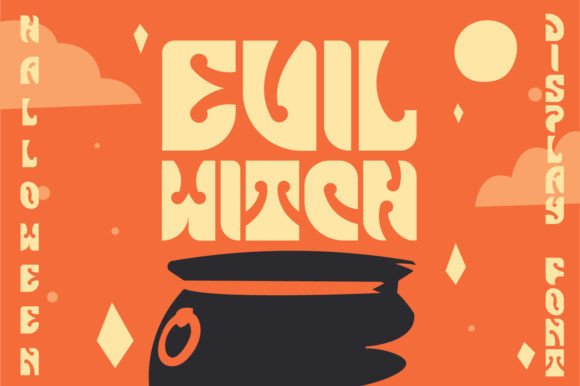
Dare to be different and let your creativity run wild with Evil Witch - a font that captures the essence of Halloween like no other. Its retro cartoonish style is a blast from the past, ready to breathe life into your haunting designs. From eerie Halloween cards that send shivers down spines to delightfully wicked party flyers, Evil Witch is your go-to font for all things spooky.
Picture this: A Halloween poster that transports you back to classic cartoon chills, its letters dripping with mischief and dark enchantment. Or, envision invitations that cast a spell on recipients, inviting them to a night of thrills and ghostly fun. The possibilities are endless, and the power lies in your hands.
With Evil Witch, you'll have a font that's perfect for labels that warn of haunted houses or potions that promise magical transformations. It's the ideal choice for decorations that add an extra layer of spooktacular ambiance to your Halloween setup, creating an unforgettable atmosphere that will leave your guests spellbound.
But Evil Witch isn't just limited to Halloween. Its versatility extends to any project craving a touch of quirky charm. It'll add a dash of retro flair to posters, flyers, and even logos, making them stand out from the ordinary.
So, embrace the magic of Evil Witch and embark on a creative journey that's sure to leave a lasting impression. Its bold display style is waiting to transform your ideas into reality, leaving your audience captivated and eager for more. Unleash your inner artist and let Evil Witch weave its spell on your designs.